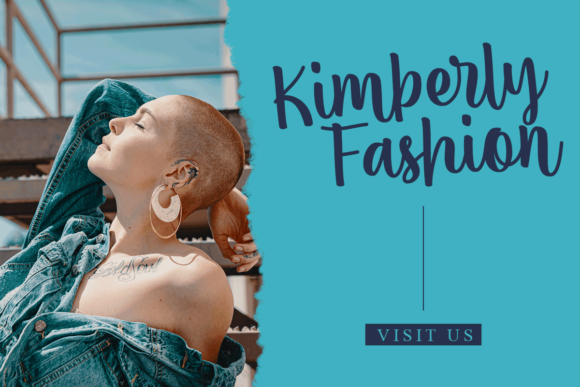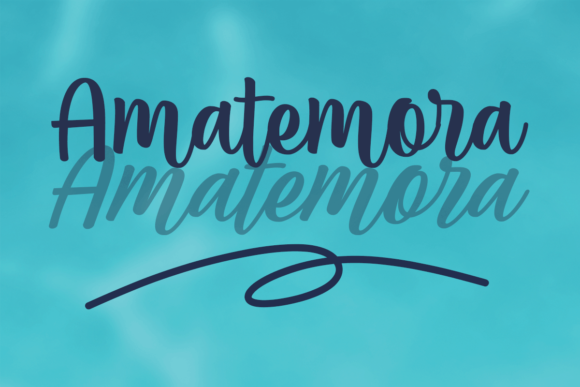
Amatemora Font
db-ku.com - Script & Handwritten -- Amatemora is a classy and quirky handwritten font. The uniqueness of this font is equipped with swashes that will complement your designs and creations. It is perfectly suited for all branding, social media posts, quotes, greeting card, wedding invitations, logos, lettering, t-shirt design materials and much more!